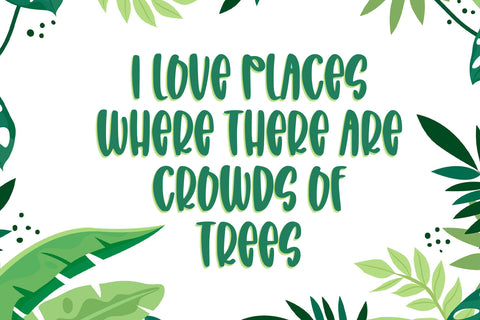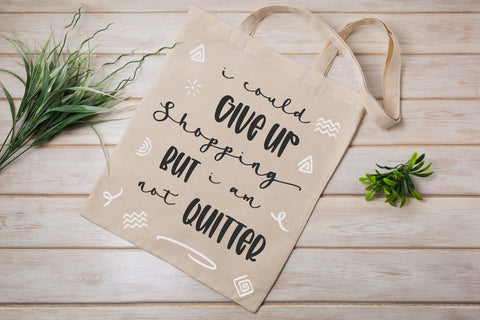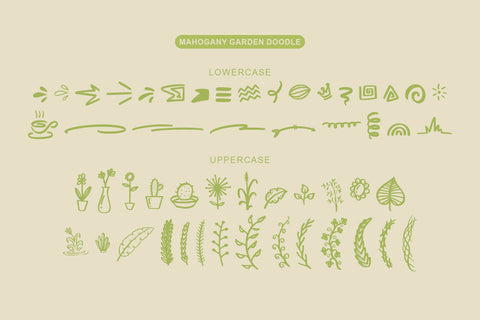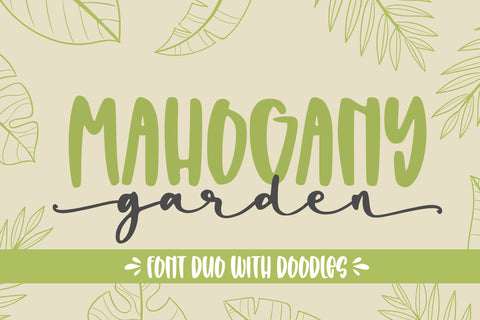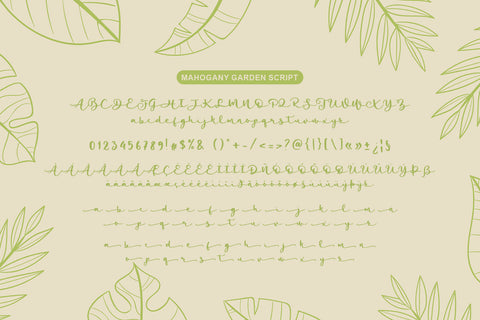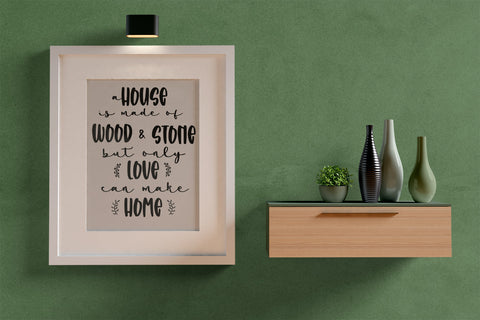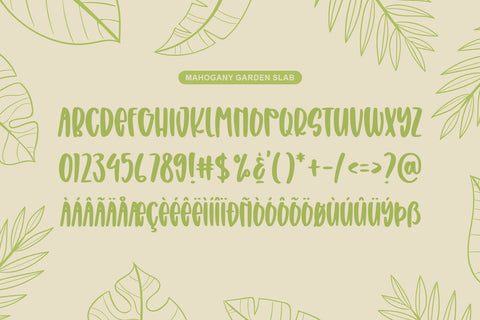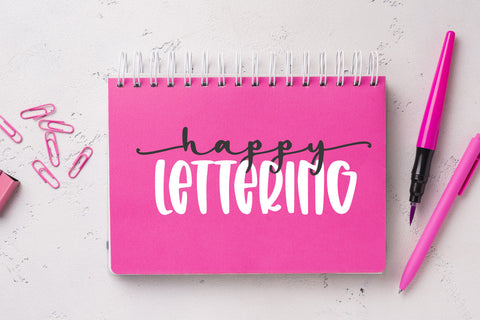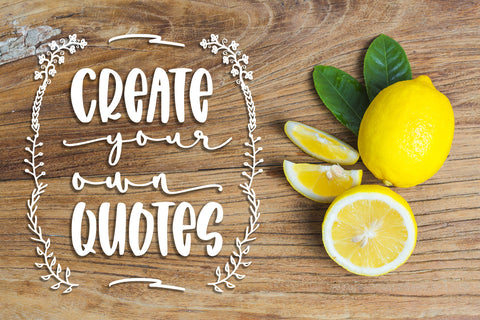
Mahogany Garden - Font Trio
introducing
MAHOGANY GARDEN
- font duo with doodles -
Mahogany Garden is designed for crafters
It is great for cutting, silhouette, branding, packaging, quotes, t-shirt design, card, banner, and anything of craft project.
- MAHOGANY GARDEN SCRIPT
- MAHOGANY GARDEN SLAB
- MAHOGANY GARDEN DOODLE
- Script
- Slab
- Doodle